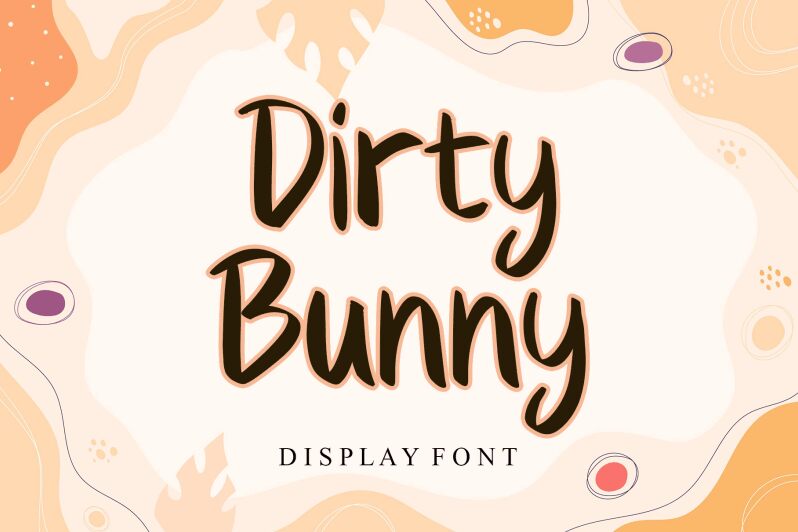
Dirty Bunny
Dirty Bunny font by Letterafa Studio combines a casual, brush-like texture with the finest of handmade details. This expressive contemporary font is characterized by its smooth hand-drawn appearance and authentic irregularities. Letters seamlessly nestle into each other forming eye-catching word shapes that can send your designs to unforeseen levels.
Add Dirty Bunny to logotypes, book covers, banners, greeting cards, headlines, invitations or tattoo designs. Decorate album covers with it or visualize hobby-related artworks for blogs. Be it for personal or for professional use – this amazing font is completely free both ways!